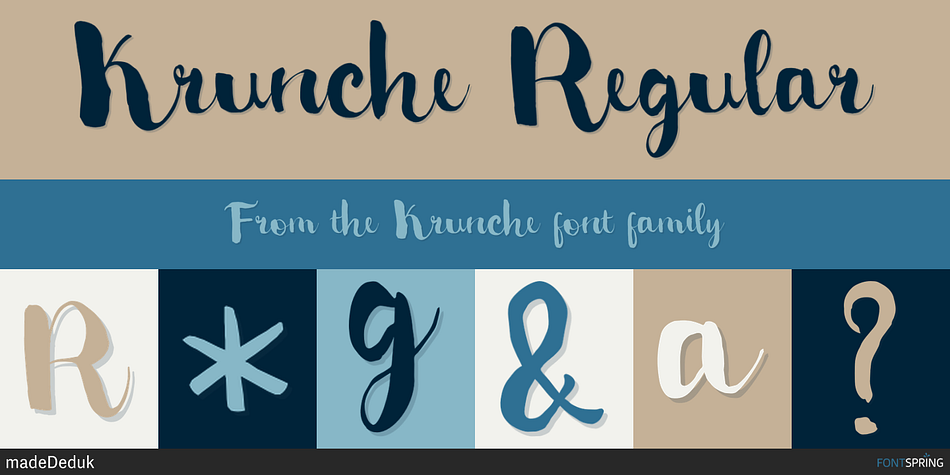
Krunche Regular
Designed by Suandana Ipandemade, Krunche is a brush script font family published by madeDeduk.
Really excited to introduce Krunche is a realistic brush script! Come with much alternative and this font perfect for poster design, book covers, merchandise, fashion campaigns, newsletters, branding, advertising, magazines, greeting cards, album covers, and quote designs and more.
- Uppercase
- Lowercase
- Ligature
- Alternative